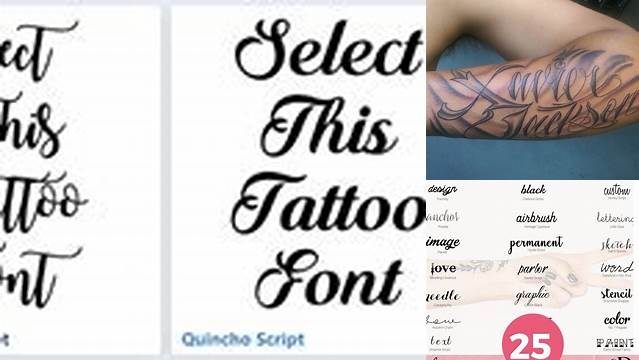
Tattoo Font Styles: Your Guide To The Perfect Ink
Are you guys ready to dive into the awesome world of tattoo fonts? Choosing the right alphabet fonts for your tattoo is a big deal, right? It's like picking the perfect outfit – it's gotta match your vibe! This guide is all about helping you navigate the wild and wonderful landscape of alphabet font styles for tattoos, so you can make a choice that you'll love forever. We'll explore everything from classic to modern, simple to intricate, and everything in between. Let's get started, shall we?
1. Classic Tattoo Fonts: Timeless Elegance
Alphabet fonts styles for tattoos have a rich history. These classic tattoo fonts often draw inspiration from traditional sources, like old-school lettering used by sailors and early tattoo artists. They are all about clean lines, bold strokes, and a sense of permanence. Think of the iconic "American Traditional" style, with its thick, dark outlines and simple serifs. These fonts are designed to stand the test of time, both in terms of design and readability. The most popular of these are often called "serif" fonts, characterized by the small strokes or lines at the ends of the letters. These subtle details give them a touch of sophistication. Other classic fonts include scripts that resemble handwriting, adding a personal and intimate touch. Many people choose classic fonts for names, dates, or meaningful quotes because they are straightforward and don't rely on trendy styles that might fade over time. When choosing a classic font, consider its weight – some are heavier and bolder, while others are lighter and more delicate. Also, think about the spacing between letters and words, called kerning and leading, respectively – these can significantly impact the overall look and feel of your tattoo. The choice of font also depends on where the tattoo will be placed on your body; a larger tattoo may allow for a more detailed font, while a smaller one may require a simpler design. These classic fonts are incredibly versatile. They can be adapted to various tattoo styles, making them a reliable choice for anyone seeking a timeless tattoo design. They also work well in combination with other elements, such as images or decorative borders, to enhance their visual impact. Ultimately, classic tattoo fonts offer a sense of groundedness and dependability, reflecting a love for the traditional and a respect for the longevity of body art.
2. Script Fonts: Expressing Personality Through Handwriting
Alphabet fonts styles for tattoos can also offer a personal touch. Script fonts bring a level of intimacy and personality that few other styles can match. They mimic handwriting, offering a sense of fluidity and a unique aesthetic. Choosing a script font is akin to choosing your personal signature. The choices range from elegant cursive to more casual, handwritten styles. Think of the graceful lines of a calligraphic script, or the more relaxed and flowing look of a handwritten note. These fonts are perfect for names, quotes, or any message that you want to feel deeply personal. The appeal of script fonts is that they allow for a high degree of individuality. Each script font has its nuances, from the slant and curve of the letters to the way they connect. When selecting a script font, consider the readability of your tattoo. Fine lines can fade over time, so choosing a font that is legible even after the aging process is essential. Also, keep in mind that script fonts often work best when the text isn't too long. Longer texts can become difficult to read and less impactful. The placement of the tattoo is also significant when choosing a script. These fonts often look great on the wrist, forearm, or collarbone, where the natural flow of the script can be appreciated. The style can add a feminine and elegant touch. You might also want to work with your tattoo artist to create a custom script. By combining different fonts or modifying existing ones, you can create a truly unique design that is all your own. The beauty of script fonts is their ability to capture the essence of handwriting and the personal touch of a handwritten note.
3. Bold and Block Fonts: Making a Statement
Alphabet fonts styles for tattoos can definitely have a boldness to them. If you're looking to make a statement, look no further than bold and block fonts. These fonts are all about strength, clarity, and making a visual impact. They are typically characterized by thick, solid lines and a strong presence on the skin. Bold fonts are perfect for words or phrases that you want to stand out. They offer a level of readability that makes them ideal for tattoos that need to be seen from a distance. The block font is another popular choice, with its straight lines and uniform thickness, providing a modern and clean look. When selecting a bold or block font, consider the size and placement of your tattoo. These fonts require space to fully display their design; therefore, they work well on larger areas like the back, arm, or leg. Also, think about the overall aesthetic you want to achieve. Bold fonts can convey a sense of confidence and power. They are a great choice if you want a tattoo that reflects strength or resilience. The placement of the tattoo is also significant when choosing a block font. Keep in mind that bold fonts might appear more dominant, so consider how the tattoo will fit with your overall style. You can also experiment with different variations of bold fonts, like those with a slight shadow or a distressed appearance. By carefully considering the font's size, weight, and style, you can create a tattoo that is not only visually striking but also a true reflection of your personality. Ultimately, bold and block fonts are a strong and powerful way to express yourself through body art.
4. Modern Tattoo Fonts: Contemporary Designs
Alphabet fonts styles for tattoos also include a lot of modern designs. Modern tattoo fonts encompass a wide range of contemporary styles, which often incorporate unique twists and innovative designs. These fonts are all about keeping up with the latest trends and pushing the boundaries of traditional typography. They can range from sleek and minimalist designs to intricate and artistic creations. Modern fonts often play with geometric shapes, negative space, and creative letterforms. They can be a great way to express a unique and individual style. The selection of a modern font also depends on your personal aesthetic and the message you want to convey. When selecting a modern font, consider its longevity. Trends come and go, so it's essential to choose a font that you'll continue to love over time. The placement of the tattoo can also influence your choice. A minimalist font might look great on a small area, such as the wrist or ankle. Consider the details of the font – the curves, lines, and how they interact with each other. Modern fonts can offer a fresh and unique approach to body art. They're a great choice if you want a tattoo that feels current and cutting-edge. These fonts also offer a great level of flexibility, allowing you to experiment with different styles and design elements.
5. Minimalist Tattoo Fonts: Less is More
Alphabet fonts styles for tattoos can take a minimalist route as well. Minimalist tattoo fonts embrace the philosophy of "less is more." These fonts are all about simplicity, clean lines, and a focus on the core message. They typically involve simple geometric shapes, elegant serifs, and a refined aesthetic. Minimalist fonts are a great choice for those who want a subtle yet meaningful tattoo. The beauty of minimalist fonts is their versatility. They can work in various contexts, from delicate quotes to significant dates. When selecting a minimalist font, consider its readability. Simpler fonts are often easier to read. Make sure the font is clear and understandable, especially if it includes detailed elements. Also, think about the placement of your tattoo. Minimalist fonts are often suitable for smaller tattoos on the wrist, ankle, or behind the ear. The appeal of a minimalist font also lies in its adaptability. It can be paired with other elements, such as small symbols or geometric shapes, to enhance the overall design. You may also want to consider the font's weight and spacing. A slightly thicker font can make the tattoo more visible. Minimalist fonts offer a refined and elegant approach to body art. They are a great choice if you want a tattoo that is both simple and powerful.
6. Gothic Fonts: Embracing Dark Aesthetics
Alphabet fonts styles for tattoos can offer an aesthetic choice. Gothic fonts bring a dramatic and mysterious aesthetic to the world of tattoos. Inspired by the medieval Gothic art and architecture, these fonts feature elaborate and ornate designs. Think of the intricate details, sharp angles, and bold lines of Gothic lettering. These fonts are often associated with a sense of history, mystery, and a touch of rebellion. They are a perfect choice for individuals who want to express a darker and more individual style. Gothic fonts often have a strong visual impact. They are perfect for creating tattoos that make a statement. When choosing a Gothic font, it's essential to consider its legibility. Gothic fonts can be complex and detailed, and if the letters are too intricate or small, they can be hard to read. Also, think about the placement of your tattoo. Gothic fonts often work well on larger areas. It will showcase the details and allow for a more impactful design. Also, keep in mind that Gothic fonts may require more maintenance over time. The intricate details can be prone to blurring, and you may need to get them touched up. Gothic fonts offer a dramatic and elegant approach to body art. They're a great choice if you want a tattoo that reflects your individual style.
7. Japanese Tattoo Fonts: The Art of Kanji and Hiragana
Alphabet fonts styles for tattoos can be a cultural expression. Japanese tattoo fonts encompass the beauty and symbolism of Kanji and Hiragana characters. These fonts offer an opportunity to incorporate elements of Japanese culture and philosophy into your body art. Kanji fonts, the logographic characters from Chinese origin, are rich in meaning, with each character representing an idea or concept. Hiragana, a phonetic alphabet, is used for Japanese words and grammar. Choosing a Japanese font is similar to selecting a meaningful quote, as each character holds a unique significance. When selecting a Japanese font, think about the meaning of each character. It is crucial to research and understand the connotations of the characters you want to include in your tattoo. This research will help you avoid any misunderstandings. Also, consider the placement of your tattoo. The characters might be best on the back, arm, or chest. Finally, consult with an experienced tattoo artist familiar with Japanese characters. They can help ensure that the characters are correctly and accurately represented. Japanese tattoo fonts offer a distinctive cultural style. They're perfect for anyone seeking a meaningful and artistic tattoo design.
8. Tribal Fonts: Symbols of Heritage and Identity
Alphabet fonts styles for tattoos are often used as a symbol of heritage. Tribal fonts are a testament to the rich history and traditions of various indigenous cultures. These fonts typically draw inspiration from tribal art, patterns, and symbols. Think of the intricate and geometric designs of Polynesian tattoos or the bold, sweeping lines of Maori art. They are often used to convey heritage, identity, and cultural pride. Tribal fonts can range from simple and minimalist designs to elaborate and complex patterns. The variety allows you to find a style that resonates with your personal style and cultural background. When selecting a tribal font, consider its significance. Understand the meaning and symbolism associated with each design. Also, think about the placement of your tattoo. Tribal fonts often work best on larger areas. You can showcase the details and patterns of the design. It’s essential to consult with an experienced tattoo artist familiar with tribal designs. They can help ensure that your tattoo is accurate and respectful to the culture it represents. Tribal fonts offer a powerful way to connect with your heritage and express your identity. They're a great choice if you want a tattoo that tells a story.
9. Calligraphy Fonts: The Art of Elegant Lettering
Alphabet fonts styles for tattoos can include beautiful calligraphy. Calligraphy fonts bring the art of elegant lettering to your tattoo. These fonts are characterized by their graceful curves, flowing lines, and a sense of artistic beauty. They are often used to add a touch of sophistication and artistic flair to your body art. Calligraphy fonts are perfect for names, quotes, and phrases that you want to express with an artistic touch. When choosing a calligraphy font, consider the readability of the letters. The more elaborate the script, the harder it might be to read. Also, think about the placement of your tattoo. Calligraphy fonts often look beautiful on the wrist, forearm, or collarbone. You can showcase the fluidity and elegance of the design. You might want to work with your tattoo artist. They will help you to create a custom calligraphy design that matches your vision. Calligraphy fonts offer a timeless and elegant approach to body art. They're a great choice if you want a tattoo that expresses your artistic side.
10. Watercolor Tattoo Fonts: Blending Art and Ink
Alphabet fonts styles for tattoos sometimes include watercolor. Watercolor tattoo fonts are a unique style that blends the beauty of watercolor painting with the permanence of ink. These fonts mimic the soft, flowing appearance of watercolor, creating a beautiful and artistic effect. Watercolor fonts often involve a variety of colors, creating a vibrant and eye-catching design. When choosing a watercolor font, consider the complexity of the design. Watercolor tattoos can be more challenging to execute than other tattoo styles. Make sure you find an artist who specializes in this style. Also, think about the colors that will be used in your tattoo. Watercolor fonts offer a delicate and beautiful approach to body art. They are a great choice if you want a tattoo that expresses your artistic side.
11. Serif Fonts: A Closer Look at Classic Detail
Alphabet fonts styles for tattoos provide a classic detail. Serif fonts are the backbone of the classic design, distinguished by the small strokes, or serifs, at the ends of the letters. These serifs add a sense of elegance, tradition, and readability. Think of the iconic "Times New Roman" or "Garamond" fonts, and you'll get a clear idea of the style. These fonts are often associated with formal writing, books, and historical documents, making them a great choice for tattoos that seek to reflect a timeless aesthetic. Serif fonts can be applied to various tattoo designs, from simple names and dates to intricate quotes and phrases. When choosing a serif font, consider the weight and style of the serifs. Some fonts have delicate, thin serifs, while others have bold and more pronounced strokes. The choice depends on your overall design goals and the size and placement of your tattoo. The readability of a serif font is also important, especially if the tattoo will be small. Ensure that the serifs do not make the font difficult to read or obscure the overall message. The spacing between the letters is essential. It ensures that the words are clear and easy to distinguish. Serif fonts provide a sense of refinement and elegance. They are a great choice for anyone seeking a classic and timeless tattoo.
12. Sans-Serif Fonts: Modern and Clean Aesthetics
Alphabet fonts styles for tattoos provide a modern aesthetic. Sans-serif fonts are all about clean lines, simplicity, and modern aesthetics. Unlike serif fonts, these fonts do not have the small strokes at the ends of the letters. The result is a streamlined and minimalist design that is popular for tattoos. Think of fonts like "Arial" or "Helvetica." They are used extensively in contemporary design. Sans-serif fonts offer a sense of modernity and clarity, making them perfect for tattoos that aim for a clean and uncluttered look. These fonts are versatile. They can be used for text of different sizes, from small names to larger quotes. When choosing a sans-serif font, consider its weight and style. The weight, or thickness, of the font can affect its readability and appearance. Also, think about the overall aesthetic you want to achieve. A bold, sans-serif font can make a strong statement, while a thinner font can provide a more subtle look. The placement of the tattoo is important when choosing a sans-serif font. These fonts look great in various locations, but consider the size and shape of the area. Sans-serif fonts offer a fresh and contemporary style. They are a great choice if you want a tattoo that reflects a modern and minimalist design.
13. Cursive Fonts: The Flow of Personalized Expression
Alphabet fonts styles for tattoos include a style of personalization. Cursive fonts, with their flowing and interconnected letters, bring a sense of grace, personality, and intimacy to your body art. These fonts mimic handwritten scripts, often reflecting a sense of individuality and a connection to the past. They are perfect for names, quotes, or any message that carries a personal touch. The fluidity of cursive fonts can add a sense of elegance and artistic flair to your tattoo. When selecting a cursive font, consider the readability of your tattoo. Complex or overly elaborate scripts can be difficult to read. Choose a font that is legible and allows your message to come across clearly. Also, think about the placement of your tattoo. Cursive fonts often look best on the wrist, forearm, collarbone, or other areas where the natural flow of the script can be appreciated. The style can add a touch of femininity and elegance. The design also can enhance the personalization through individual elements or modifications to create a unique design. Ultimately, cursive fonts offer a graceful and personal approach to body art. They are a great choice if you want a tattoo that expresses individuality and a heartfelt message.
14. Blackletter Fonts: The Elegance of Calligraphic Tradition
Alphabet fonts styles for tattoos can include elegant calligraphic traditions. Blackletter fonts, also known as Gothic script, are steeped in history and tradition. They are characterized by their ornate and detailed designs. The style is reminiscent of the medieval calligraphy used in religious texts. They provide a sense of depth, mystery, and a touch of old-world charm. Blackletter fonts are a strong choice for tattoos that want to make a bold statement. When selecting a blackletter font, consider the level of detail and complexity of the design. These fonts can be highly intricate. Ensure that the font is legible and the details do not become lost over time. Also, think about the placement of your tattoo. Blackletter fonts often work best on larger areas to showcase the details and intricate patterns. It is important to consult with an experienced tattoo artist. They will help ensure the font is properly applied and that it resonates with the design you want. Blackletter fonts offer a unique and sophisticated style. They're a great choice if you want a tattoo that reflects an artistic and refined approach.
15. Distressed Fonts: The Aesthetics of Imperfection
Alphabet fonts styles for tattoos can sometimes include a distressed look. Distressed fonts offer a unique aesthetic that embraces the charm of imperfection, adding a sense of character and individuality to your body art. These fonts feature designs that include textures, imperfections, and variations. Think of fonts with worn edges, faded appearance, or a rough, handmade feel. Distressed fonts provide a tactile and visual appeal, making them a great choice for tattoos that seek to express authenticity and a non-conformist style. When choosing a distressed font, consider the type of effect you want. Do you want a worn, vintage look, or a more modern, grunge aesthetic? It’s important to think about the overall design. You should ensure that the imperfections enhance the message of the tattoo. Distressed fonts can be used in various designs, from bold statements to subtle quotes. The placement is significant, as well. Also, consult with a tattoo artist experienced in creating distressed designs. They will help you to achieve the desired level of imperfection. Distressed fonts provide a distinctive and expressive approach to body art. They are a great choice if you want a tattoo that reflects your personality.
16. Outline Fonts: The Simple and Bold Contour
Alphabet fonts styles for tattoos can involve outline fonts. Outline fonts are characterized by their simple yet bold designs. They consist of only the outlines of the letters, creating a clean and uncluttered appearance. This design offers a sense of elegance, modernity, and versatility. Outline fonts are perfect for tattoos that seek a minimalist yet impactful design. They are often used for single words, names, or initials. When choosing an outline font, consider its weight and thickness. The thickness of the outline can affect its visual impact. Also, think about the overall aesthetic you want to achieve. A thicker outline will make a stronger statement, while a thinner outline will provide a more subtle look. The placement of the tattoo is also significant when choosing an outline font. These fonts work well on various locations, from the wrist to the ankle. They are very adaptable to any design. Outline fonts provide a fresh and contemporary style. They are a great choice if you want a tattoo that reflects a modern design.
17. Shadow Fonts: Adding Depth and Dimension
Alphabet fonts styles for tattoos can add dimension with shadows. Shadow fonts provide a sense of depth and dimension to your tattoo design. These fonts are characterized by their inclusion of a shadow or a 3D effect. It adds a visual impact and creates an illusion of movement. Shadow fonts are perfect for tattoos that want to make a bold statement. When selecting a shadow font, consider the direction and intensity of the shadow. The direction of the shadow can affect the overall appearance of the design. Also, think about the color of the shadow. A darker shadow will make a stronger statement. The placement of the tattoo is significant when choosing a shadow font. These fonts often work best on larger areas where the effect can be fully appreciated. It is very important to consult with a tattoo artist experienced in creating shadow designs. They can help you to achieve the desired level of depth and dimension. Shadow fonts provide a unique and expressive style. They are a great choice if you want a tattoo that reflects your artistic side.
18. Bubble Fonts: Fun and Playful Designs
Alphabet fonts styles for tattoos can also include fun and playful designs. Bubble fonts bring a sense of fun and playfulness to your body art. These fonts are characterized by their rounded, inflated appearance. They add a touch of whimsy and a lighthearted aesthetic. Bubble fonts are a great choice for tattoos that seek to express a joyful personality or a playful message. When choosing a bubble font, consider its thickness and the spacing of the design. Also, think about the overall aesthetic you want to achieve. Bubble fonts can be used in various designs, from simple words to more intricate phrases. The placement of the tattoo is also important. These fonts work well on various locations. It is very important to consult with a tattoo artist experienced in creating bubble designs. Bubble fonts provide a unique and expressive style. They're a great choice if you want a tattoo that reflects your playful side.
19. Graffiti Fonts: Urban Art on Skin
Alphabet fonts styles for tattoos can be inspired by urban art. Graffiti fonts bring the bold and artistic world of urban art to your skin. These fonts are inspired by graffiti, street art, and urban culture, with unique designs, vibrant colors, and a sense of rebellion. They're perfect for expressing your creativity and individuality. When choosing a graffiti font, consider the complexity of the design. Graffiti fonts often feature elaborate and intricate designs that demand a great deal of skill from the tattoo artist. Make sure you find an artist who specializes in graffiti-style tattoos. Also, think about the colors you will use in your tattoo. Graffiti fonts offer a distinctive and expressive approach to body art. They are a great choice if you want a tattoo that reflects your artistic and urban style.
20. Font Pairing: Harmonizing Different Styles
Alphabet fonts styles for tattoos can be combined in pairs. Font pairing involves the art of combining two or more fonts to create a harmonious and visually appealing design. It is a skill that adds depth, variety, and visual interest to your tattoo design. Font pairing allows you to create a unique and personalized design. Also, it can also help you convey a message in a more creative way. When selecting fonts, consider the contrast between the fonts. The fonts you choose should complement each other. This includes the size, the weight, and the style. Keep in mind the design and the placement. The most important thing is to seek advice from an experienced tattoo artist. They can provide guidance on the best font combinations for your tattoo design. Font pairing is a creative approach to body art. It is a great choice if you want a tattoo that showcases your individuality.
21. The Importance of Legibility in Tattoo Fonts
Alphabet fonts styles for tattoos are important for readability. Legibility is key to ensuring your tattoo's message is clear and remains readable for years. The perfect font might look beautiful on paper, but if it is not legible on your skin, it will lose its impact. Consider the font's style and the size of your tattoo. Detailed fonts can be beautiful. However, if they are too intricate or small, they can become difficult to read over time. It is also important to think about the placement of the tattoo. The fonts you choose should be easy to read. Also, consider the aging process. Make sure the font choice will stay readable throughout the years. Legibility is essential to ensure your tattoo remains a meaningful expression.
22. Font Size and Placement: Maximizing Impact
Alphabet fonts styles for tattoos also consider size and placement. The size and placement of your tattoo are important. It helps to ensure the maximum impact of your chosen font. The size should complement the design and the body part where you are getting the tattoo. Also, consider the anatomy of the body part. Think about how the font will fit. The placement of the tattoo is also important. For example, a longer quote may look better on the back. Consulting a tattoo artist is essential. They can provide expert advice on size and placement. They will help to make sure your tattoo complements your body. Using the right font size and placement will maximize your tattoo’s impact.
23. Working with a Tattoo Artist: Professional Guidance
Alphabet fonts styles for tattoos are often based on working with an artist. Working with a tattoo artist is a collaborative process. A professional tattoo artist brings experience and expertise to your design. They will offer guidance on font selection. Also, they will help you to choose the right size and placement. Your artist also knows the best techniques and tools. It ensures the font is properly applied. Before getting your tattoo, have a conversation with your artist. During the consultation, they will review your design ideas. They also will make recommendations based on their expertise. Be open to their suggestions. Also, trust their judgment. The collaborative approach will ensure you get a tattoo that you will love for a lifetime.
24. Trends in Tattoo Fonts: Staying Current
Alphabet fonts styles for tattoos often follow the trends. The world of tattoo fonts is always evolving. The current trends include minimalist fonts, script fonts, and unique letterforms. They add creativity to your design. Staying up to date will ensure your tattoo looks stylish. Researching the latest trends can help you find inspiration. You can follow tattoo artists and designers. Also, you can browse social media platforms. However, remember that trends come and go. The most important thing is to choose a font. You should love it and that it reflects your personal style. The trends should serve as a guide for your individual design.
25. Caring for Your Tattoo: Ensuring Longevity
Alphabet fonts styles for tattoos require some care. Taking care of your new tattoo is essential. It will help ensure its longevity and beauty. After getting your tattoo, follow your artist's aftercare instructions. This will include keeping the area clean. Also, you have to moisturize it regularly. During the healing process, avoid direct sunlight. You should also avoid submerging your tattoo in water. Over time, protect your tattoo from the sun. Always use sunscreen. Regular care will keep your tattoo looking great for years to come.
26. Font Design Software and Resources: Tools of the Trade
Alphabet fonts styles for tattoos are easy to get. There are several tools and resources. These tools and resources are for exploring font design. You can use font design software. You can experiment with different styles and designs. Websites and online libraries offer a wide selection of fonts. It can provide inspiration for your tattoo design. Using these tools, you can also create a unique design. The tools can help you visualize your design. Also, the tools help you prepare for your tattoo. These tools will help you achieve a tattoo you will love.
27. Choosing the Right Font for Your Message
Alphabet fonts styles for tattoos depend on your message. The message of your tattoo should guide your font selection. Consider what you want to express. The font you choose should reflect that message. Choose a font. Think of the fonts that can enhance the overall meaning. A simple font may be suitable for a short quote. A bold font might suit a strong statement. Also, you can choose a font that best conveys your emotions and personality. Select the right font, and your tattoo will communicate its message.
28. Avoiding Common Mistakes in Font Selection
Alphabet fonts styles for tattoos will often have mistakes. Avoiding common mistakes ensures that your tattoo looks amazing. One common mistake is choosing a font that is too small or too detailed. Make sure the font is legible. Also, research the meaning of any characters. Make sure they align with your values. Finally, always consult with a professional tattoo artist. They have knowledge, and they can help you avoid common mistakes.
29. The Future of Tattoo Fonts: Innovations and Trends
Alphabet fonts styles for tattoos evolve all the time. The future of tattoo fonts is exciting. The innovations and trends in font design include new styles and techniques. As technology advances, expect new and creative ways to customize fonts. The tattoo industry is constantly evolving. New and innovative styles are constantly emerging. You will have endless possibilities and creative options for your tattoos.
30. Personalizing Your Tattoo: Making it Your Own
Alphabet fonts styles for tattoos often involve personalization. Personalizing your tattoo is a fantastic way to make it truly your own. Customize the font. Experiment with different styles. Also, you can include symbols or elements. Create a tattoo design that reflects your personality. Your tattoo can tell a story. It can also express your uniqueness. Personalizing your tattoo will make it an enduring expression of you.